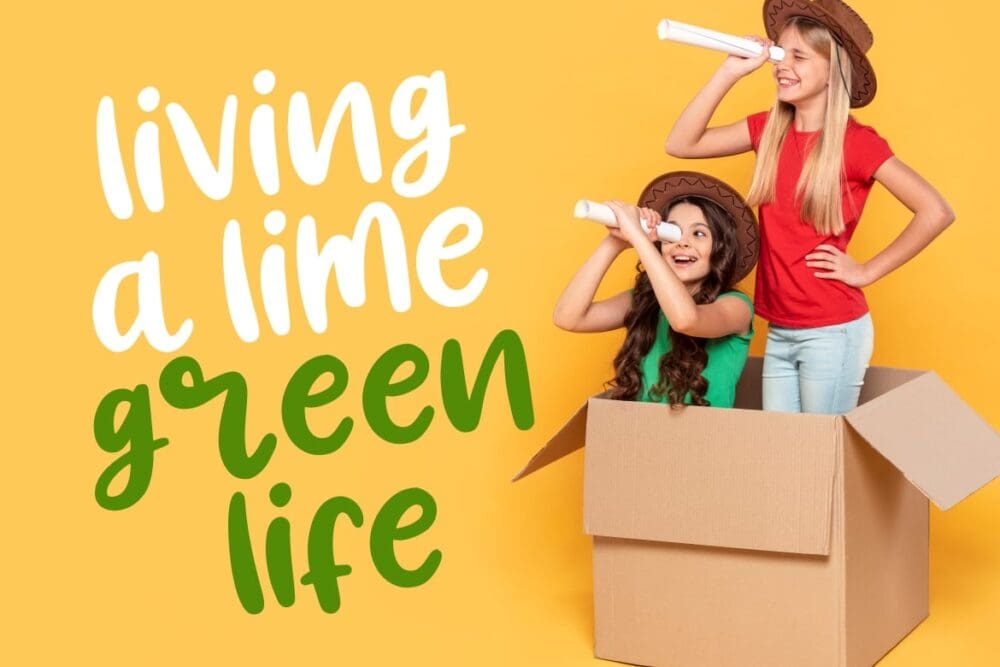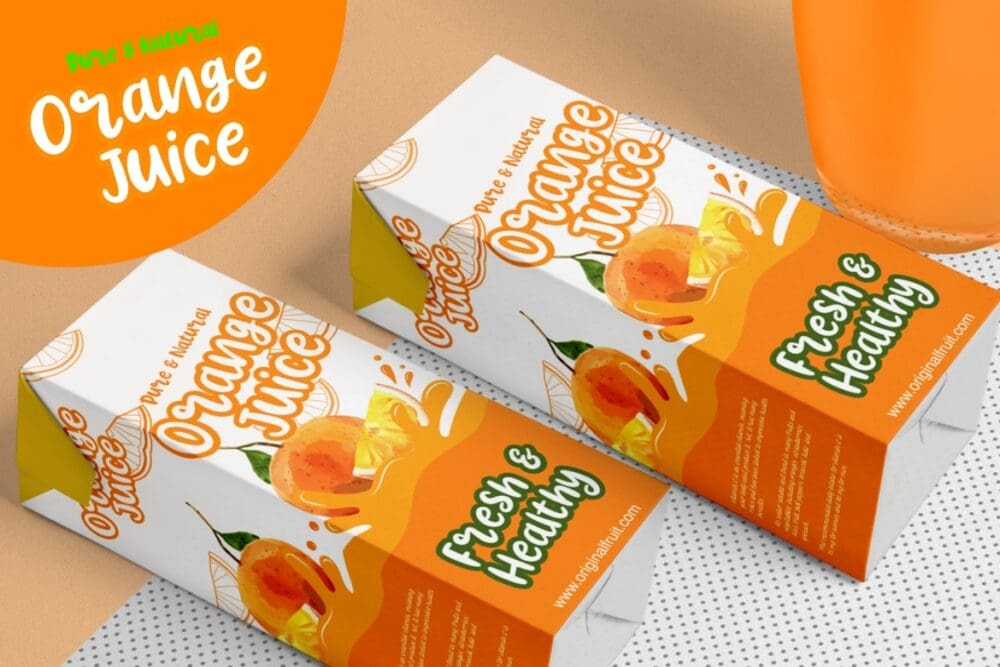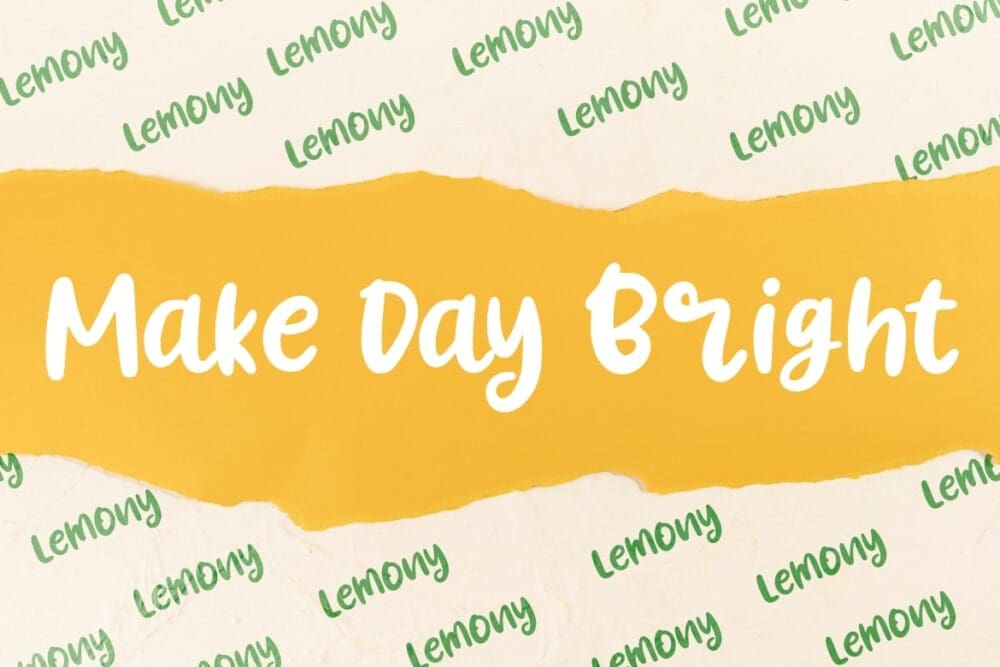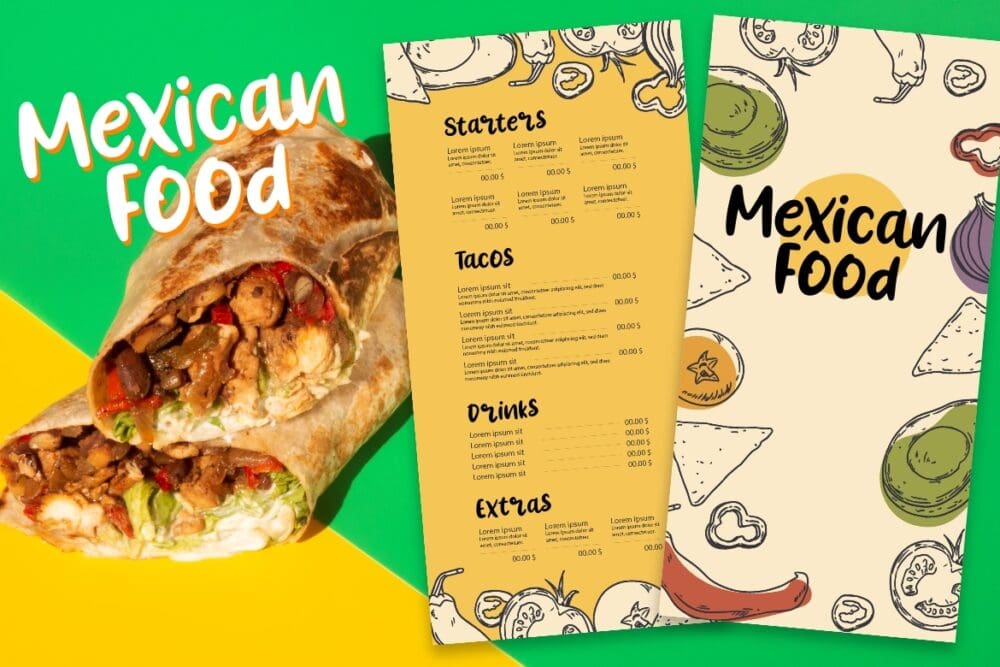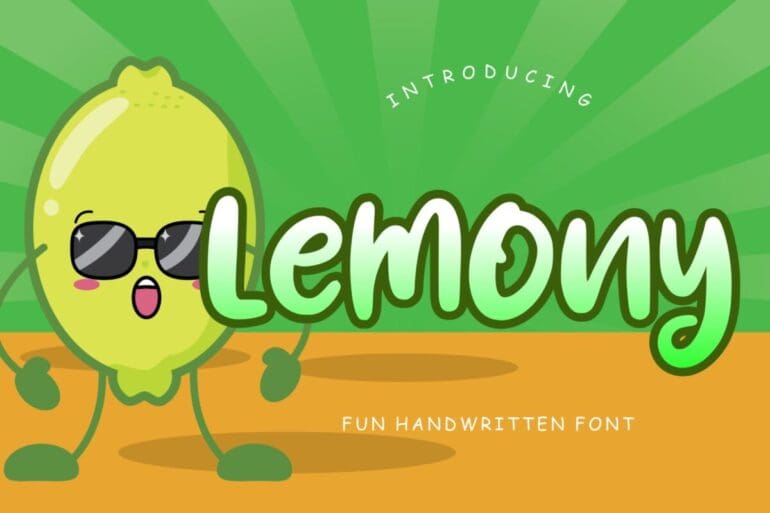
Lemony Fun Handwritten Font
Lemony Fun Handwritten Font which suitable to use for the children-related occasion. Lemony is perfect for branding projects, logo, wedding designs, social media posts, advertisements, product packaging, product designs, label, photography, watermark, invitation, stationery, and any projects that need handwriting taste.